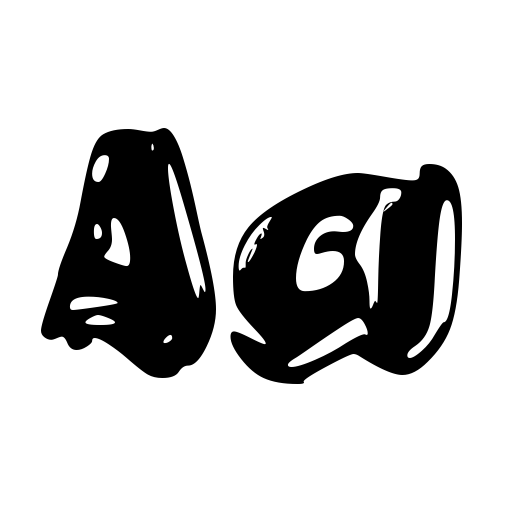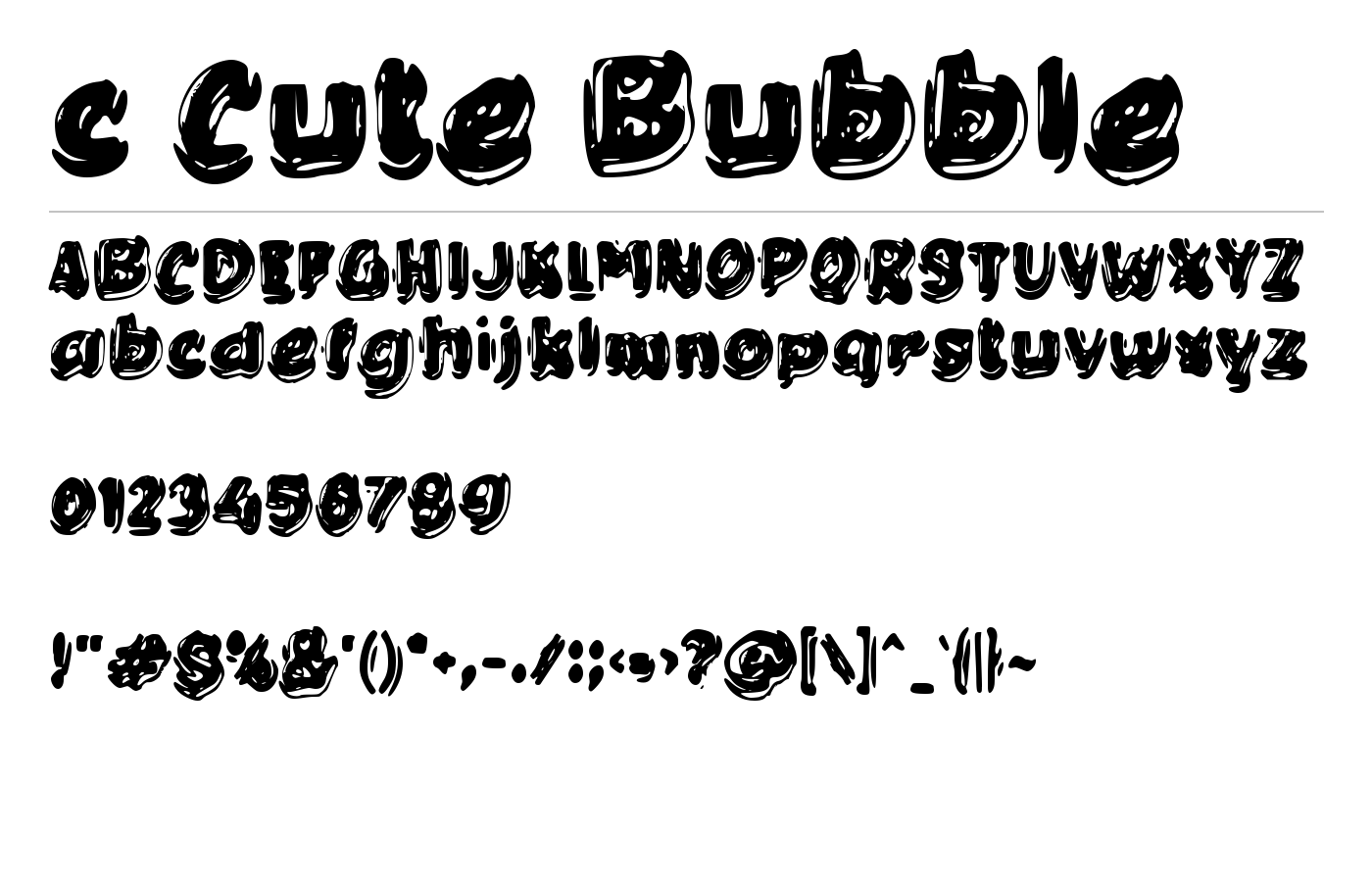
c Cute Bubble is a playful and bold display font with thick, rounded letterforms that give a bubbly, hand-drawn feel. Its lively, textured strokes and generous spacing make it perfect for fun, informal designs like children’s products, party invitations, and creative branding where a cheerful and approachable vibe is desired. This font works best at larger sizes in headlines or logos to highlight its unique, whimsical character.
c Cute Bubble Font
About c Cute Bubble Font
| Font family | c Cute Bubble Font |